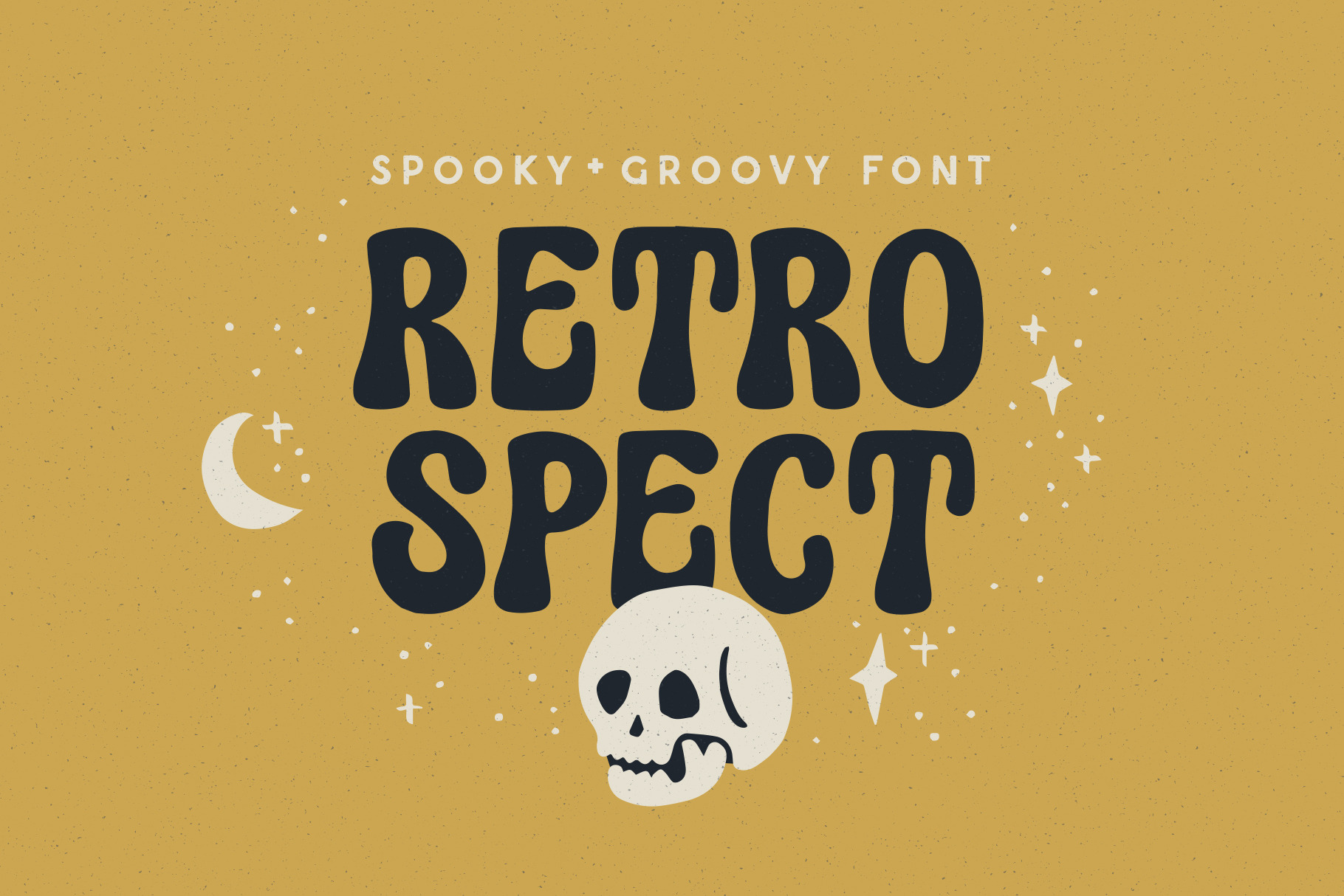
Retrospect Font
Retrospect is a quirky, hand-drawn font. It has a playful and organic feel that works great for branding, social media, and marketing! Use it for spooky Halloween designs or groovy, retro projects!